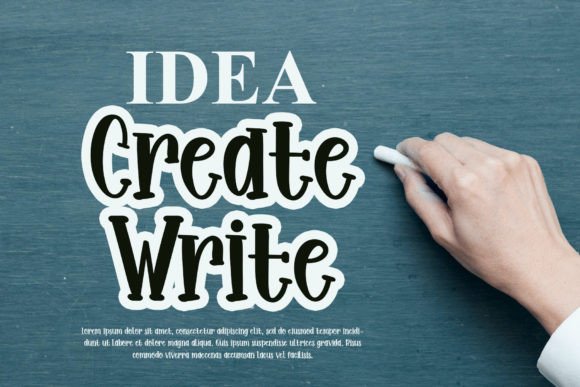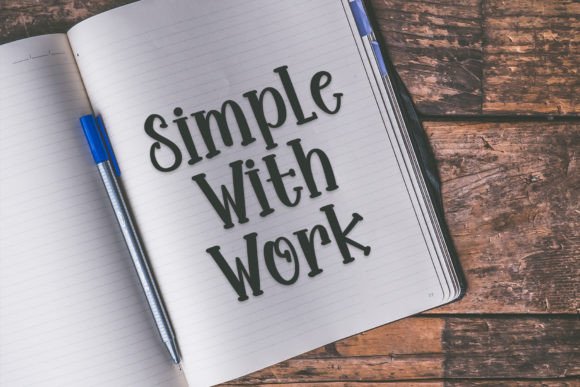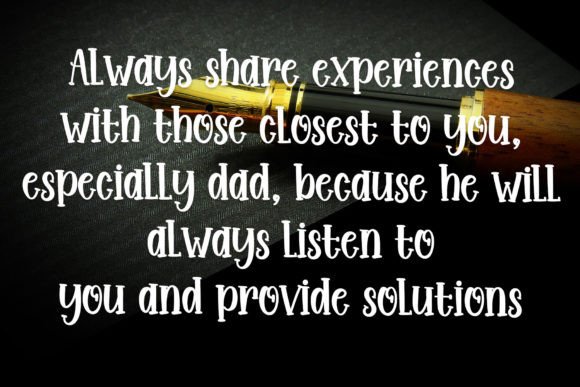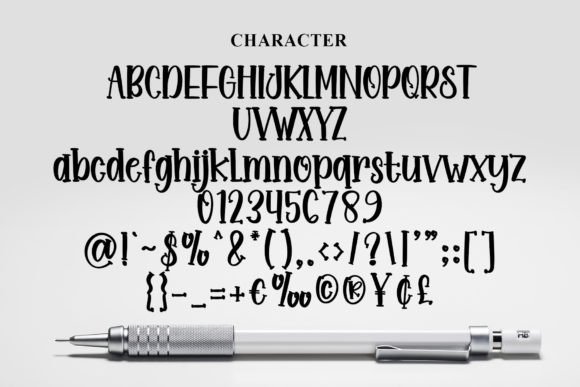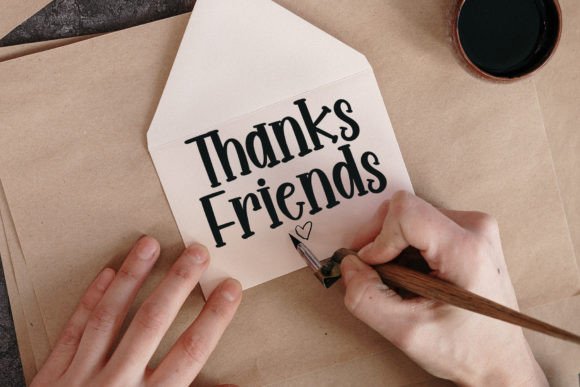
Introduction to Joyful Writing Font
Have you ever found yourself scribbling down a heartfelt message for a loved one, only to realize that the perfect font was just out of reach? For designers and creatives alike, finding the right font can make all the difference in bringing a project to life. That’s where Joyful Writing Font comes in – a delightful script and handwritten typeface that radiates happiness and positivity.
With its whimsical loops and playful strokes, Joyful Writing Font is the perfect addition to any design project that aims to spread cheer and create a warm, inviting atmosphere. Whether you’re working on a greeting card, a quote, or a creative project, this font is sure to bring a smile to your face and your audience’s.
Key Features of Joyful Writing Font
- Unique, cursive design with a playful touch, perfect for creative projects and personal use.
- Designed to be highly legible and readable, with a clear and consistent letterform structure.
- Perfect for use in creative projects, such as greeting cards, posters, and social media graphics, as well as in personal writing and journaling.
Honest Review: Joyful Writing Font
I recently stumbled upon the Joyful Writing Font, a free download that caught my attention for its unique and playful design. As a designer, I was excited to see if it would be a valuable addition to my collection of design resources.
What works well: ✨ The Joyful Writing Font has a lovely, cursive feel that’s perfect for creative projects where you want to add a touch of whimsy. The high-quality design is crisp and clear, making it easy to read and use in a variety of contexts.
- Perfect for creative projects, such as wedding invitations, greeting cards, and social media posts.
- High-quality design that’s crisp and clear.
Limitations: ⚠️ While the Joyful Writing Font is a great addition to any design collection, it’s worth noting that it may not be suitable for more formal or professional applications where a more traditional font is preferred.
Overall, I’m impressed with the Joyful Writing Font and would recommend it to anyone looking for a unique and high-quality design resource for their creative project.
Tips for Getting the Most Out of Joyful Writing Font
Experiment with different font sizes, colors, and combinations to create unique and eye-catching designs. Use the font in conjunction with other design elements, such as images and graphics, to create a cohesive look.
Common Use Cases for Joyful Writing Font
The Joyful Writing Font is perfect for creating graphics for social media, marketing materials, presentations, and documents. It’s also ideal for use in creative projects, such as book covers, posters, and flyers.